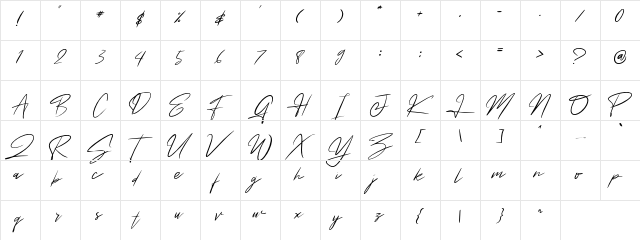
Wonderfill Regular Free Font
Wonderfill Regular
Foundry: pustudio
Designer: pustudio
Design Context for Wonderfill
Wonderfill is a composed and adaptable typeface that performs quietly and consistently across a wide range of design contexts.